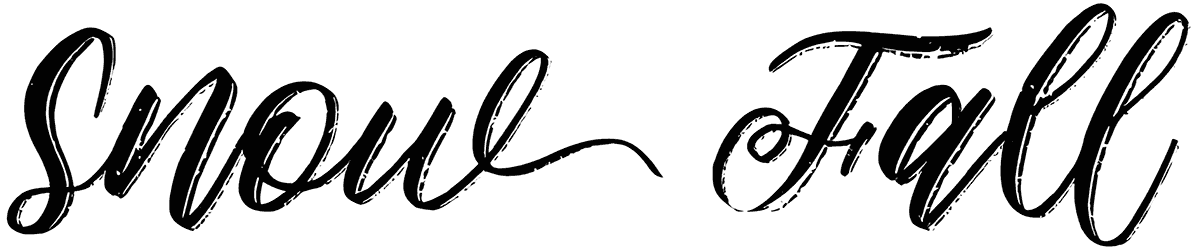
Snow Fall Font
If your design needs an elegant and classic visual to mesmerize your followers, this calligraphy font can catch your attention. Characters of the Snow Fall font are smooth and delightful, and you can set them for varied themes and titles, for instance, a Christmas postcard, a romance novel book cover, or so forth. Give this brush font a chance and enjoy the beautiful showcase.